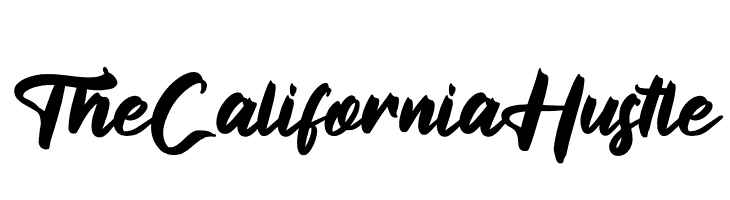
A playful, hand-drawn font with rounded edges and consistent stroke width.
A dynamic, cursive script font with flowing, artistic strokes.
A bold, blackletter-inspired font with sharp, angular lines and a gothic style.
A bold, playful font with an animal print pattern, ideal for eye-catching designs.
A sophisticated script font with elegant loops and swirls, perfect for luxurious designs.
A bold, geometric font with a futuristic and modern design.
A whimsical, festive font with decorative swirls and a script-like style.
A bold, condensed, and italicized font with a dynamic and modern style.
An elegant script font with decorative swirls and a sophisticated style.
A playful, heart-themed decorative font with bold, whimsical characters.
تحظى CALDERDALE DEMO, Right Mellody, VIRGIL BLACK, Cheetah and Queens Signature بشعبية لخطوطها النظيفة وتطبيقاتها الواسعة — من الهوية البصرية إلى الصفحات المقصودة والملصقات.